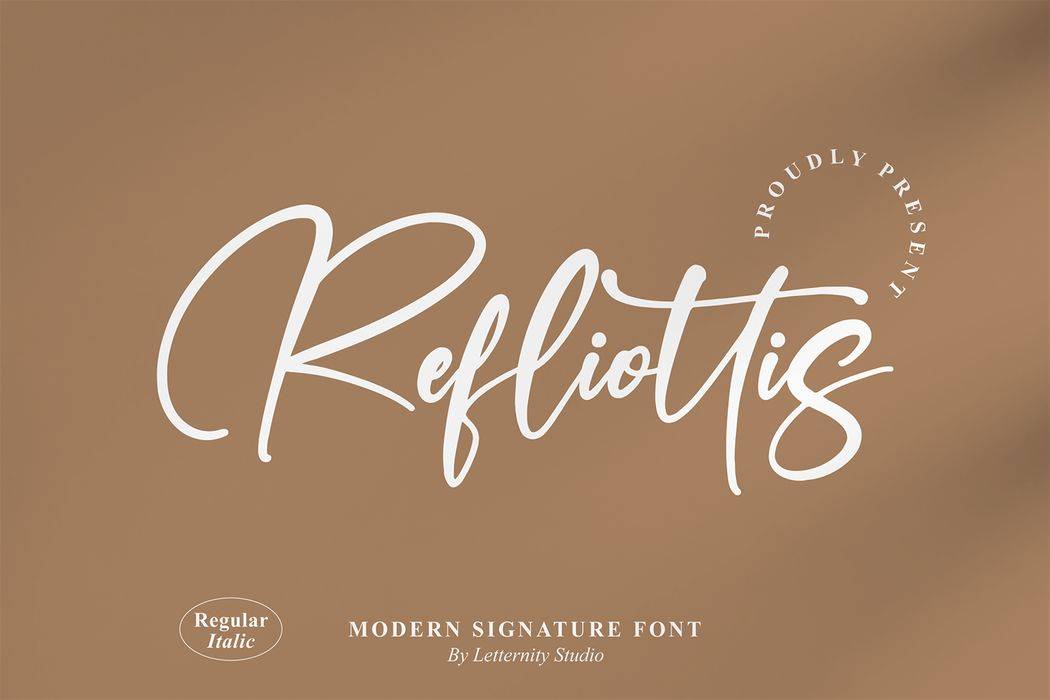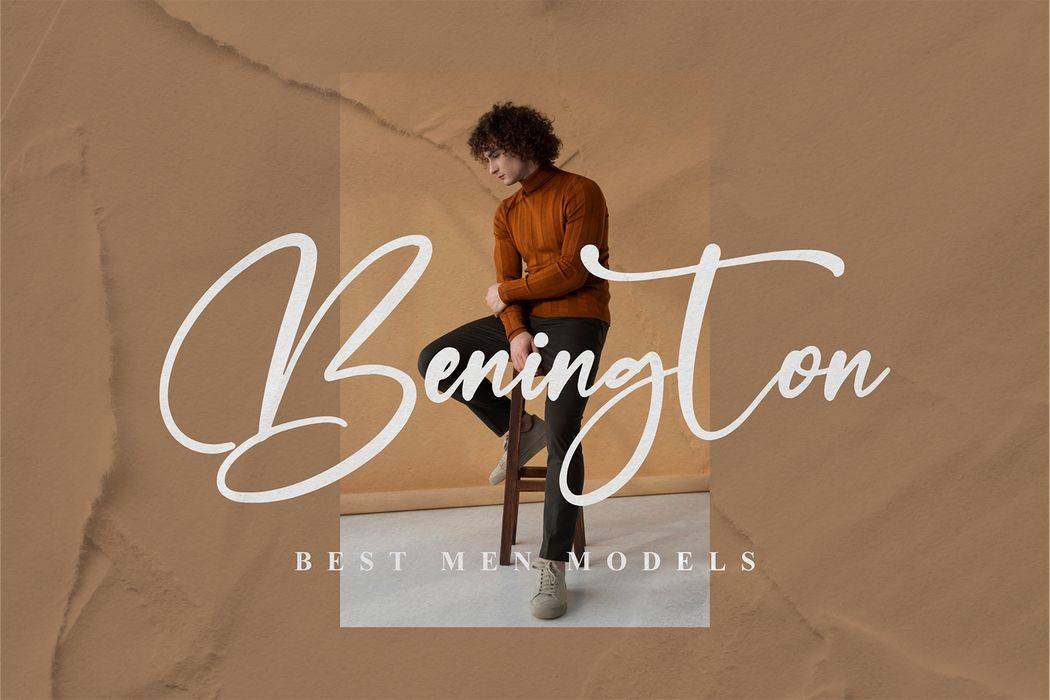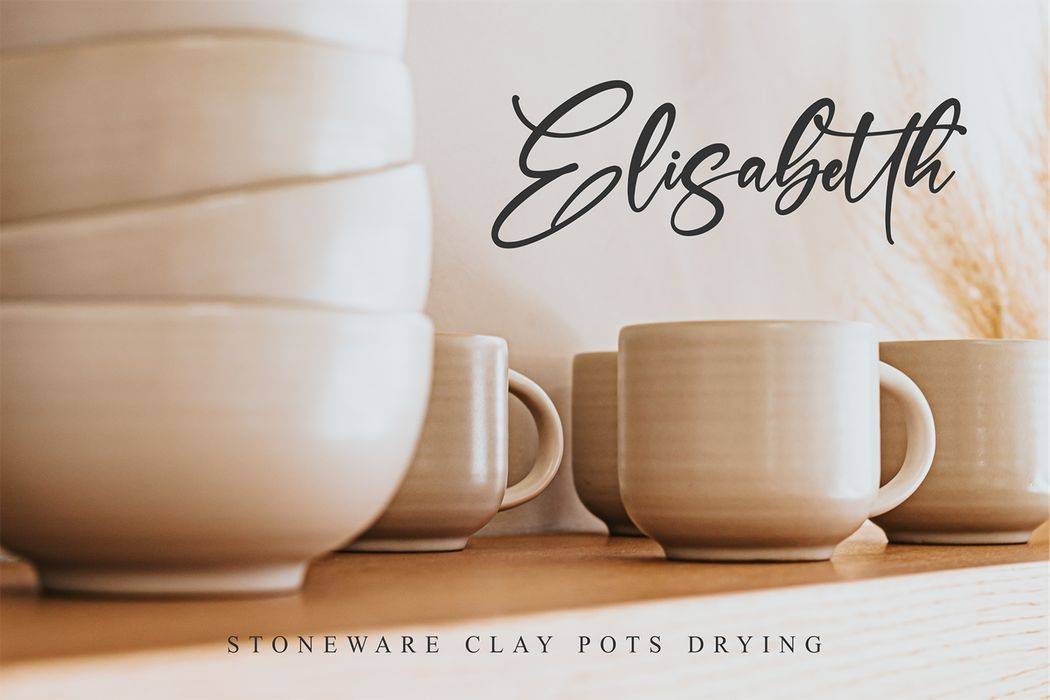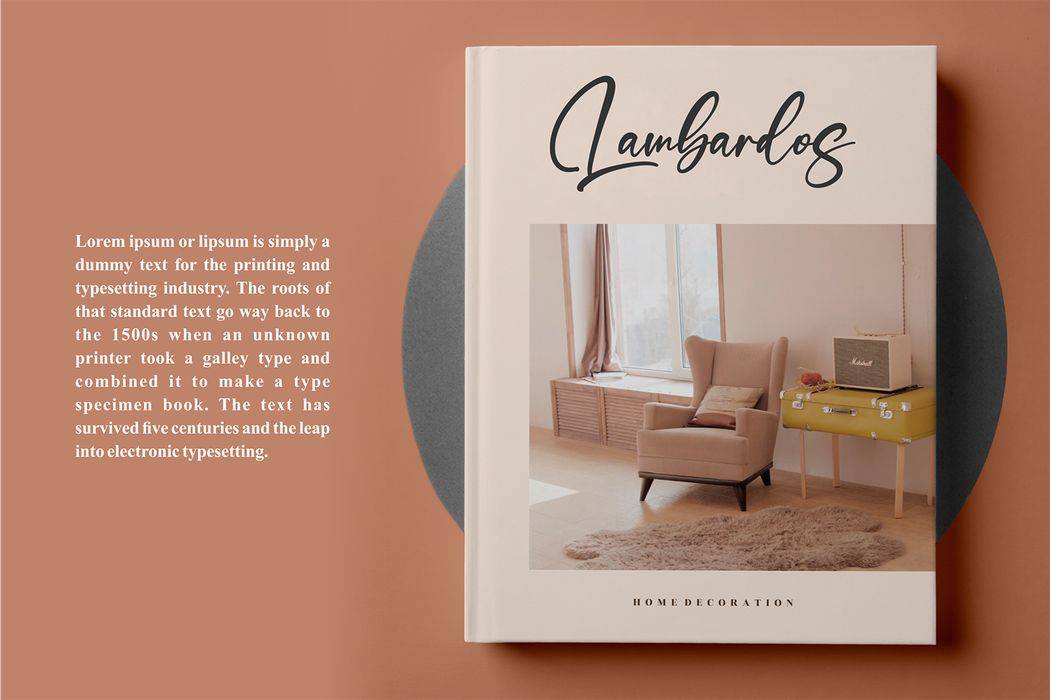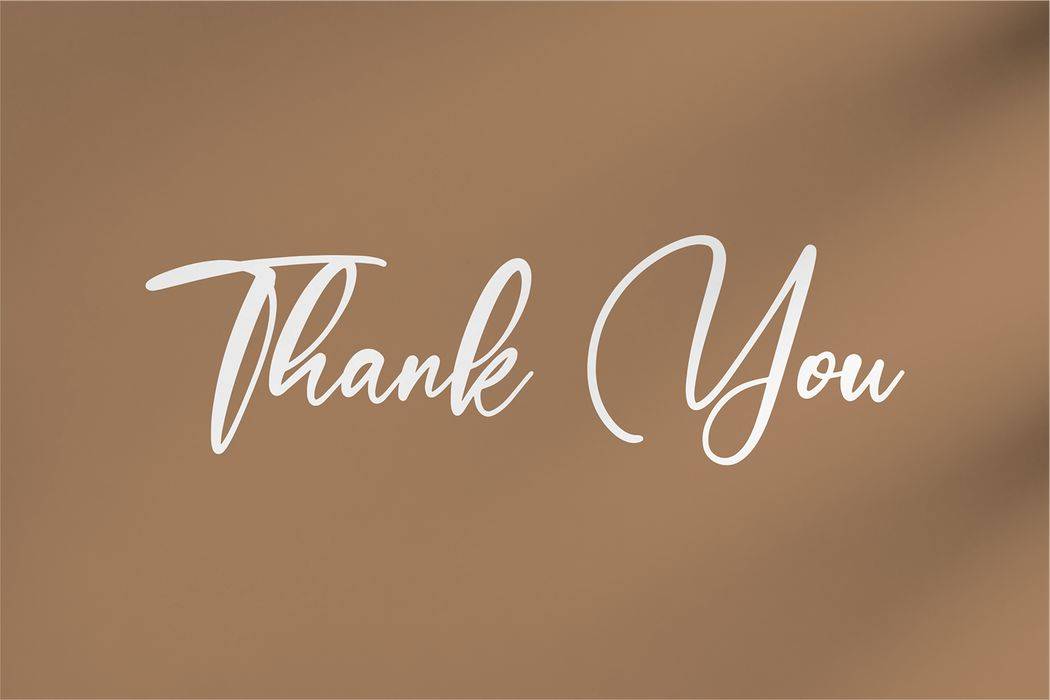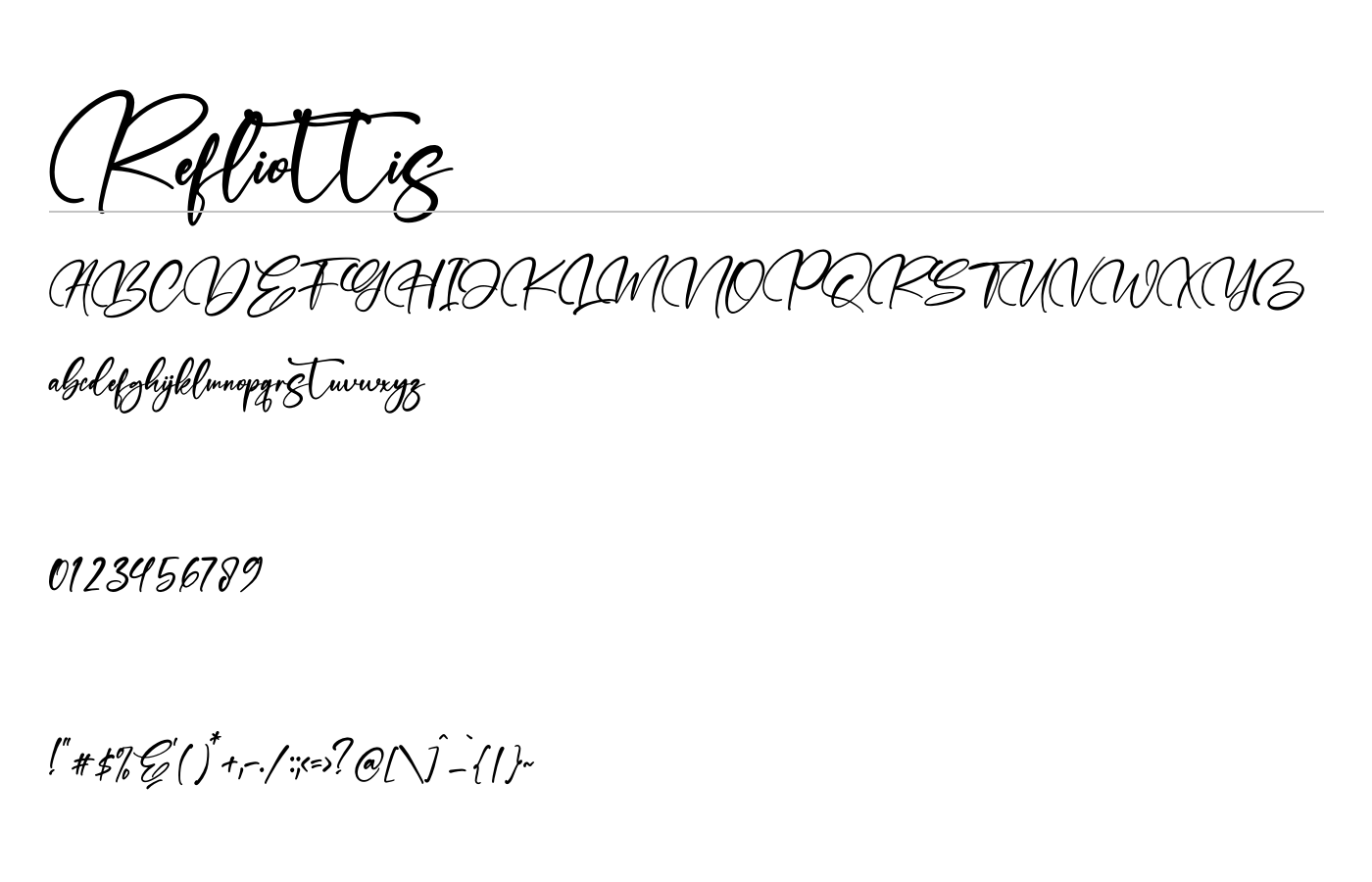
Refliottis is an elegant handwritten script font with a flowing, cursive style that feels both modern and personal. Its delicate, slightly condensed letterforms and smooth strokes give it a refined yet approachable character, making it ideal for branding, invitations, or any design that benefits from a touch of sophistication and warmth. This font works particularly well in stylish logos and decorative headlines where a graceful, handcrafted look is desired.
Refliottis Font
About Refliottis Font